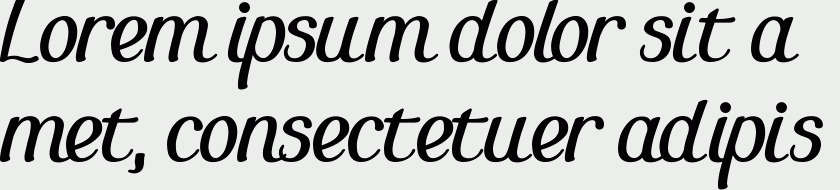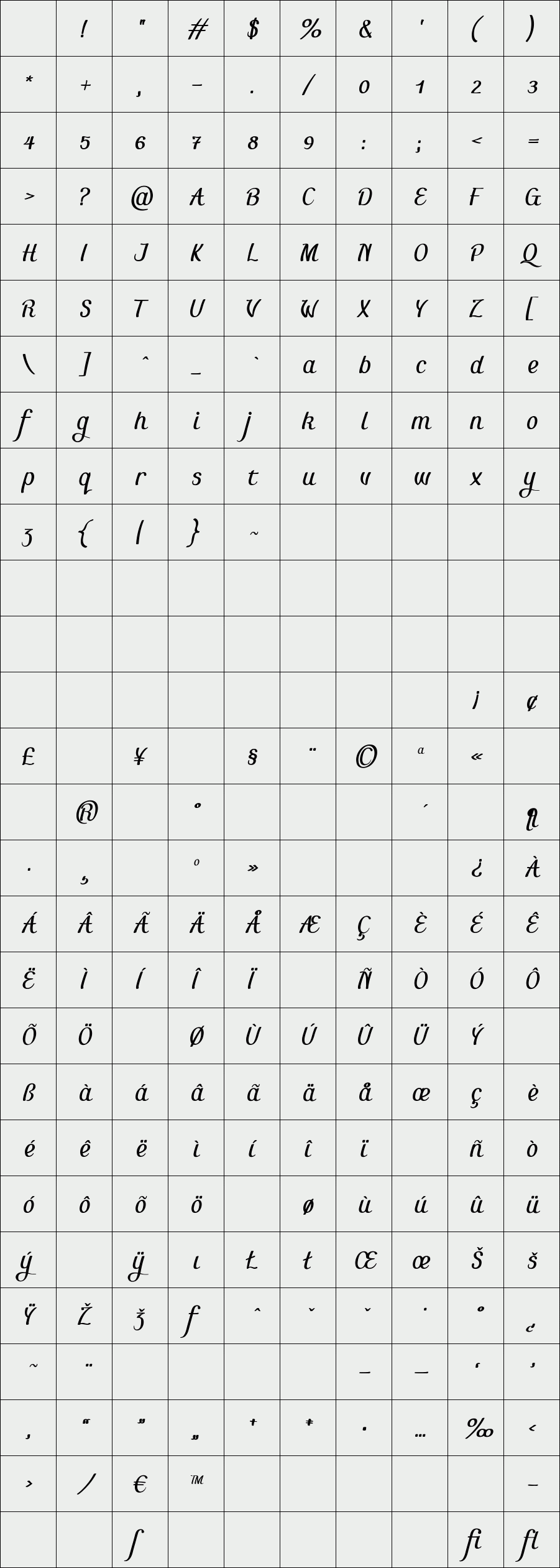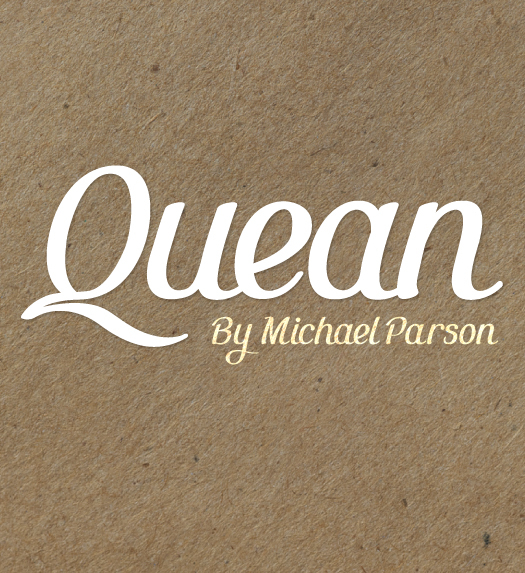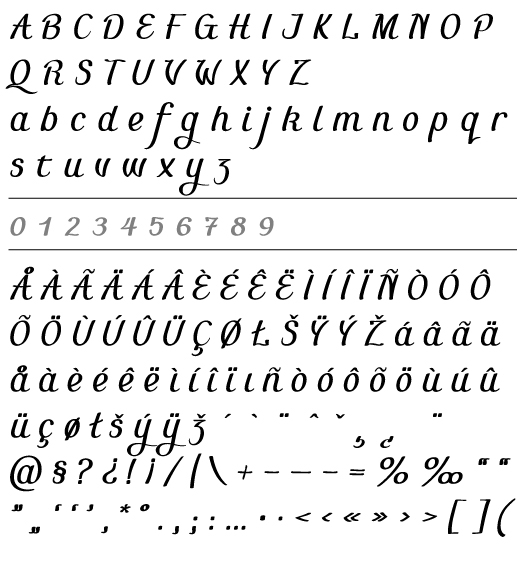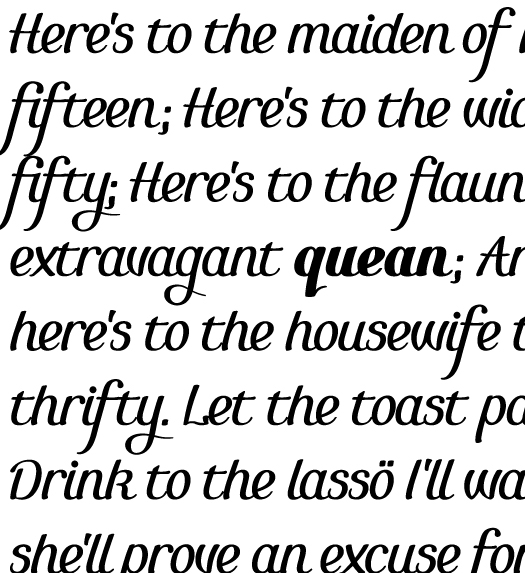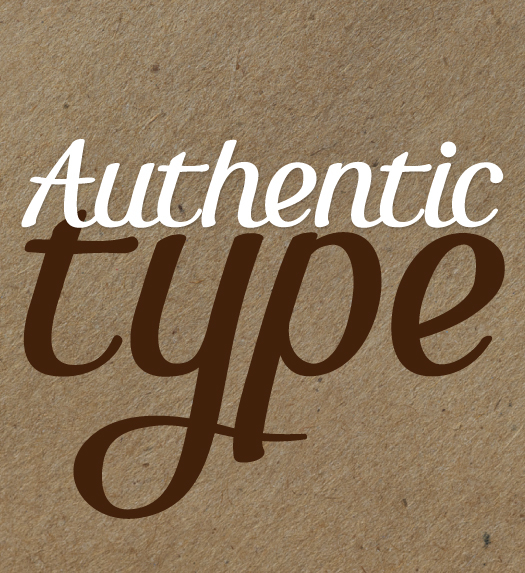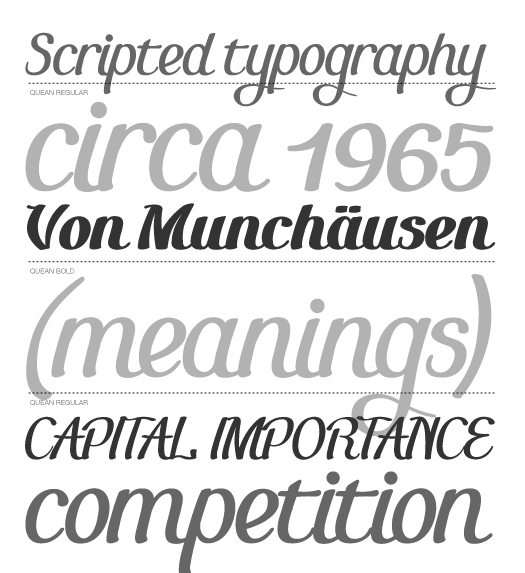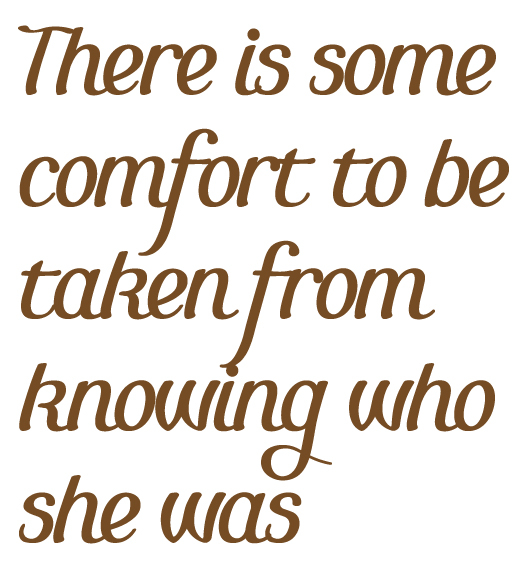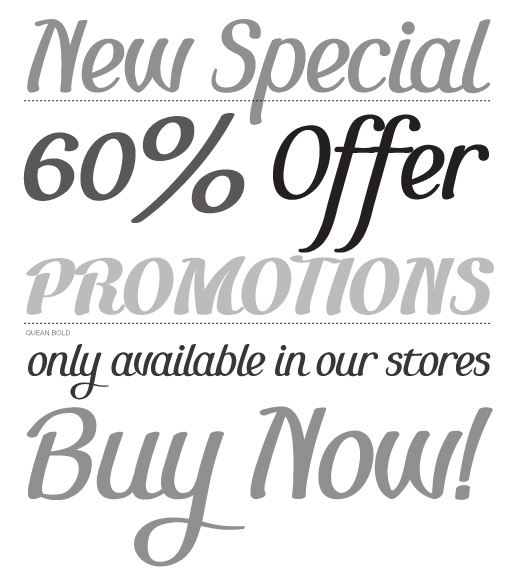
Quean
/ Quean regular
Quean is a clean script font inspired by some of the classical advertising brush styles. With a simple stroke and basic letterforms, this font conveys a manual feel but remains very legible and is particularly well suited for use in logos.